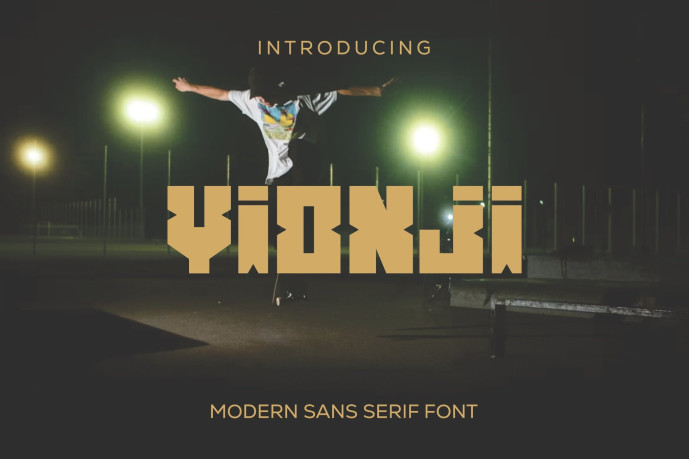
Yionji Modern Decorative Font
Yionji Modern Decorative Font is a modern decorative font, modern display font with playful flair, ideal for attention-grabbing headlines, logos, and diverse design projects. Versatile and readable in both digital and print, YIONJI adds a dynamic touch to your message.